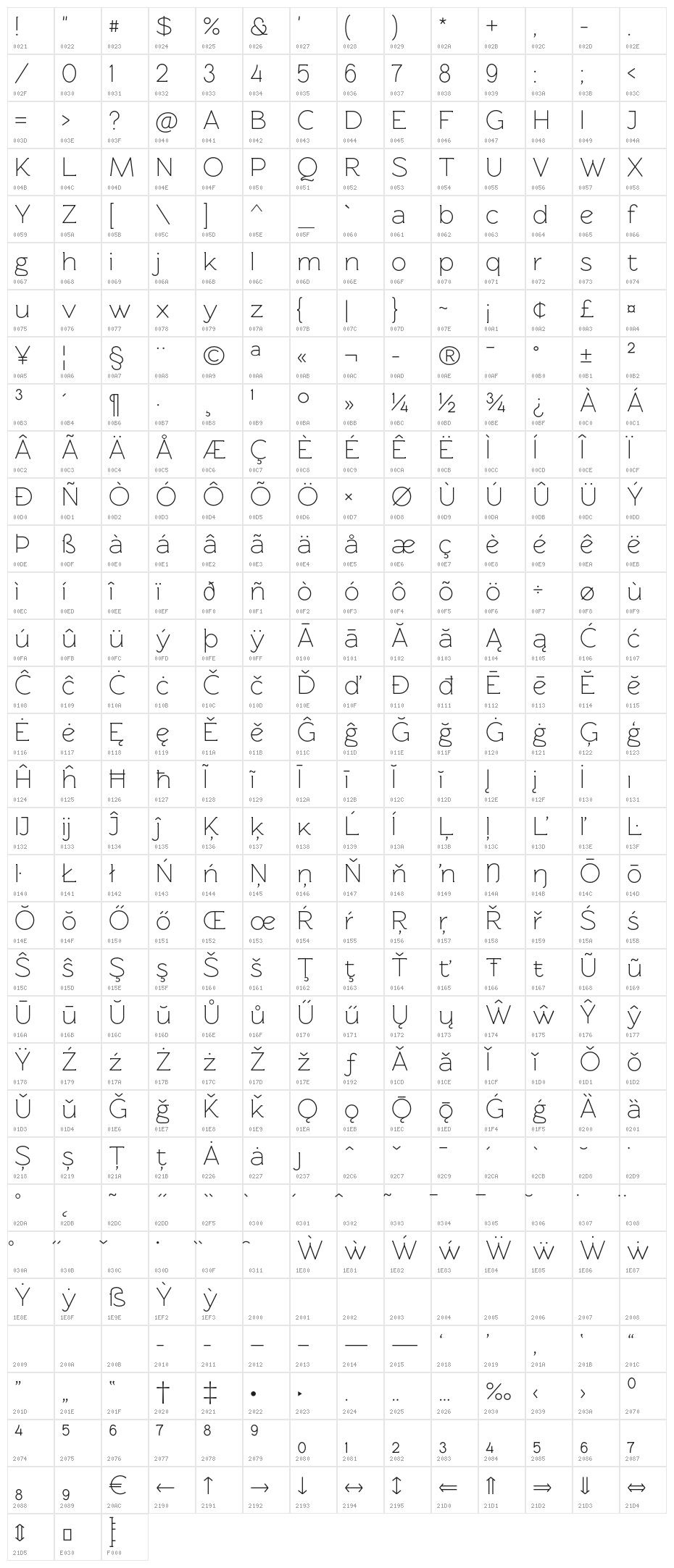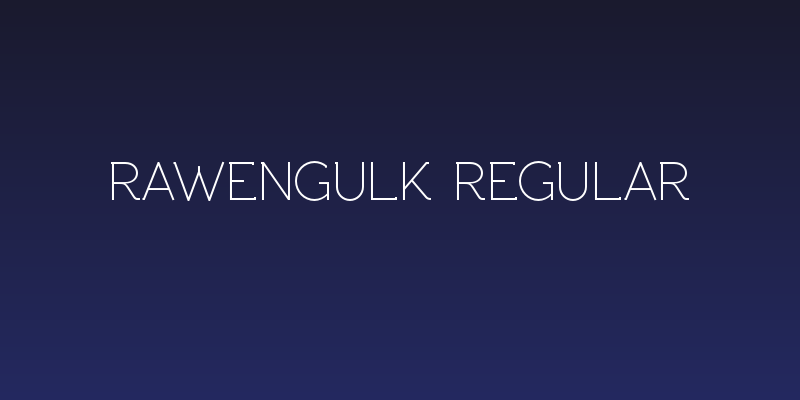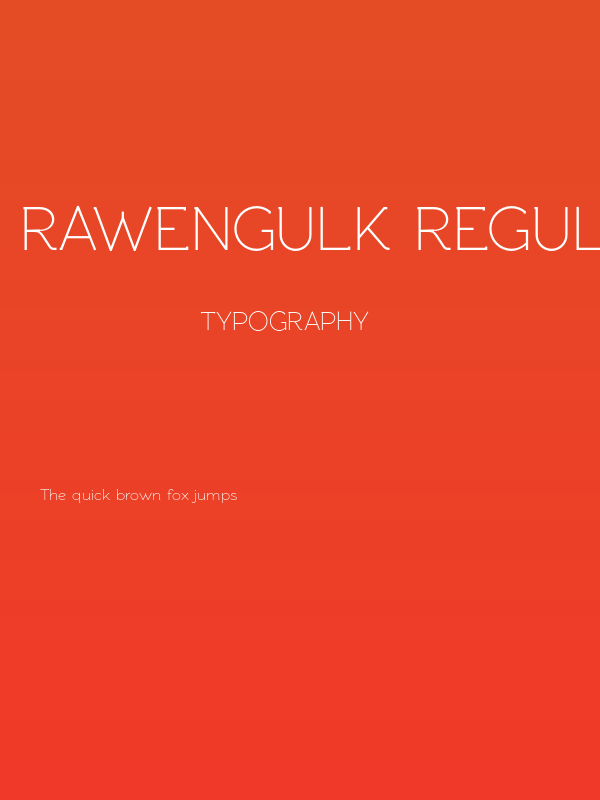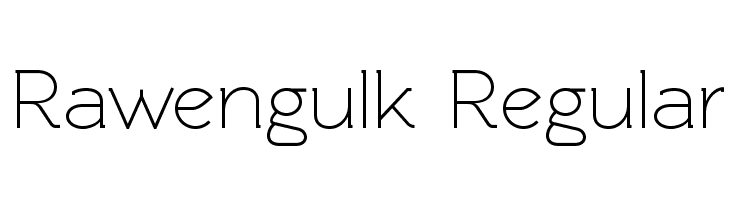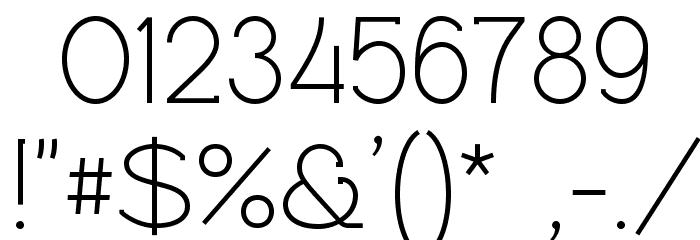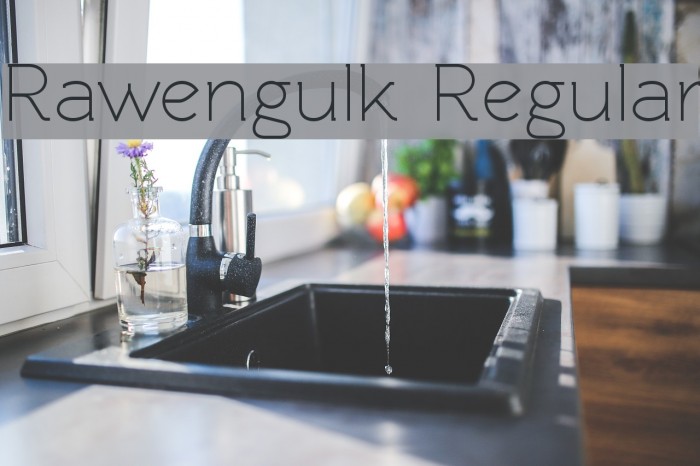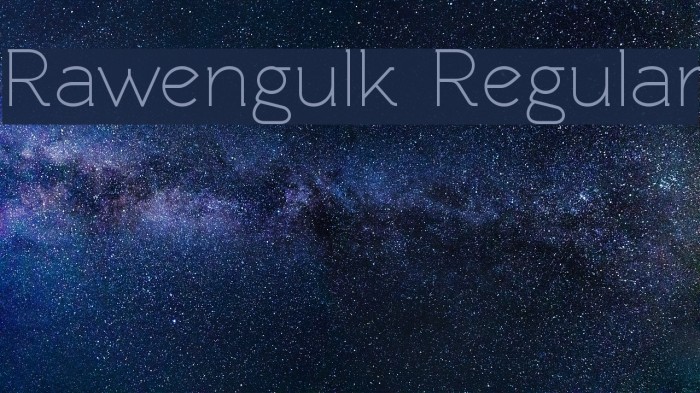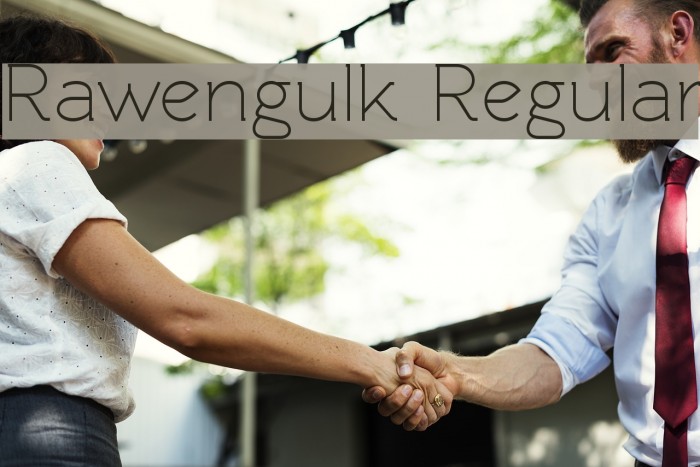
Rawengulk Regular Font
Rawengulk Regular Description
This font features a clean and modern sans-serif design with a geometric structure. The characters are evenly spaced with a consistent stroke width, providing a harmonious and balanced appearance. The uppercase letters are bold and prominent, while the lowercase letters maintain a sleek and streamlined look. The numerals are clear and legible, making them suitable for various applications. Special characters are well-defined, adding versatility to the font's usage. Overall, this font exudes a contemporary and professional vibe, ideal for digital and print media.
| Use Case | Headlines, Body text, Logos |
| Proposed Projects | Ideal for branding, web design, advertising, and editorial layouts. |